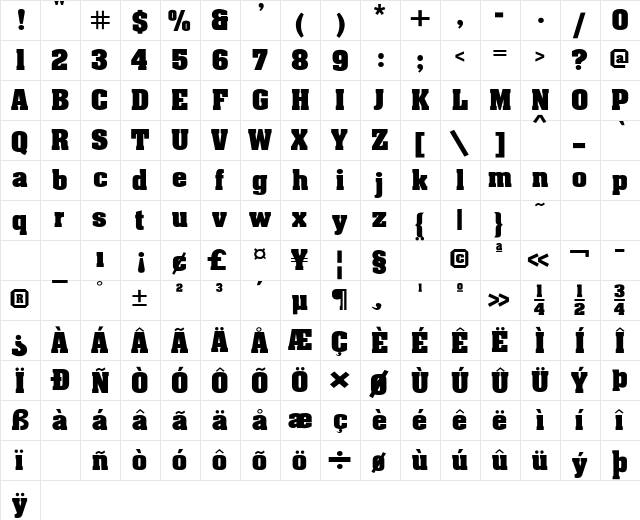
AaronBold Regular
Design Context for AaronBold Typeface
AaronBold takes a measured approach to typography — its balanced proportions and neutral character make it a reliable workhorse for both digital and print work. The heavy weight commands attention and anchors typographic hierarchies.